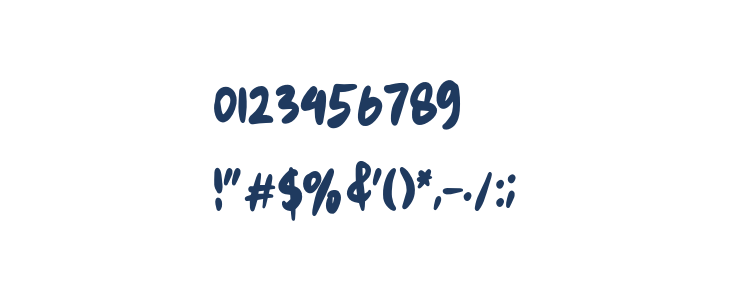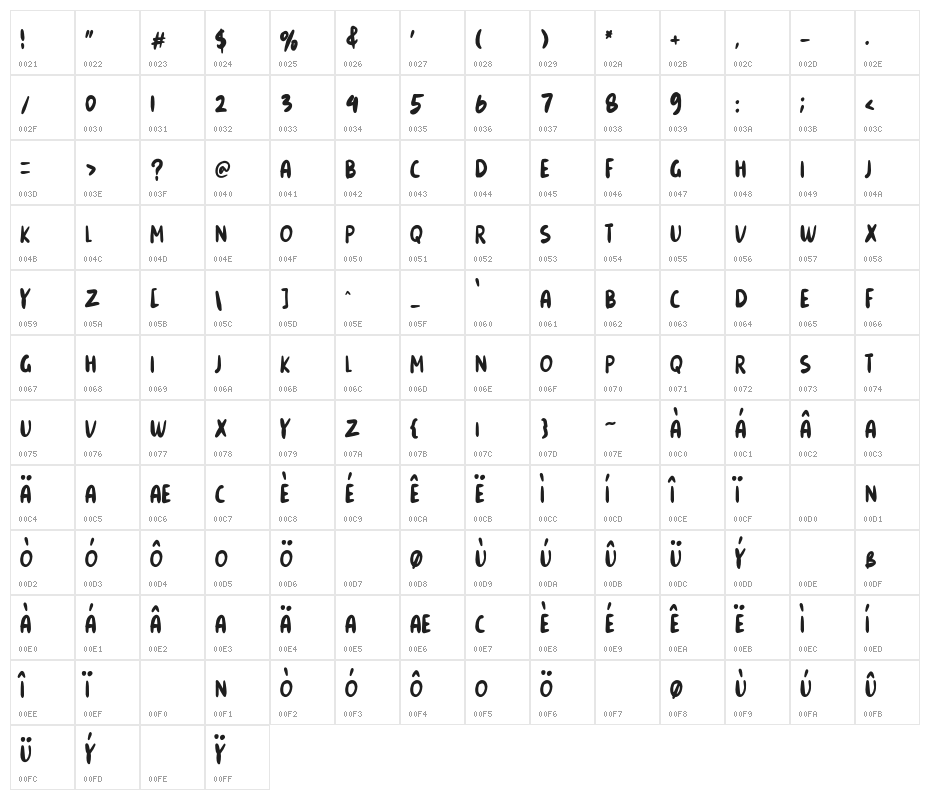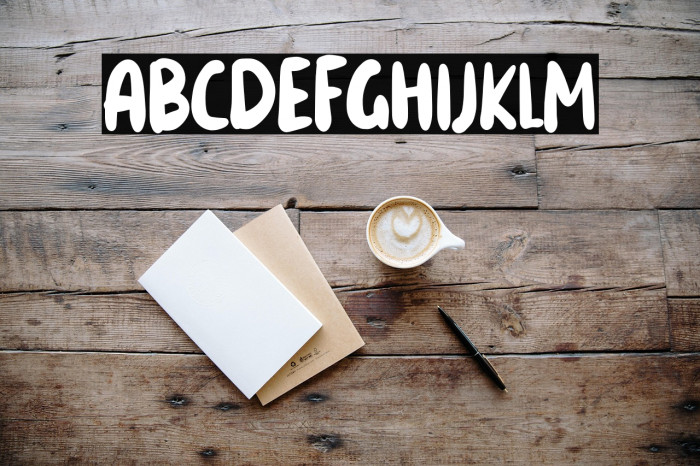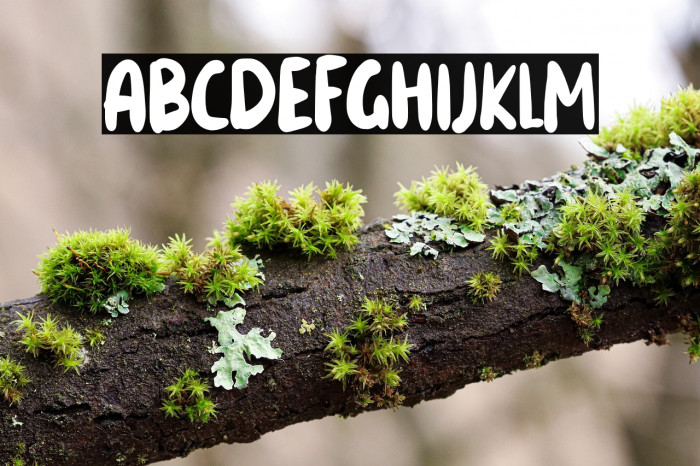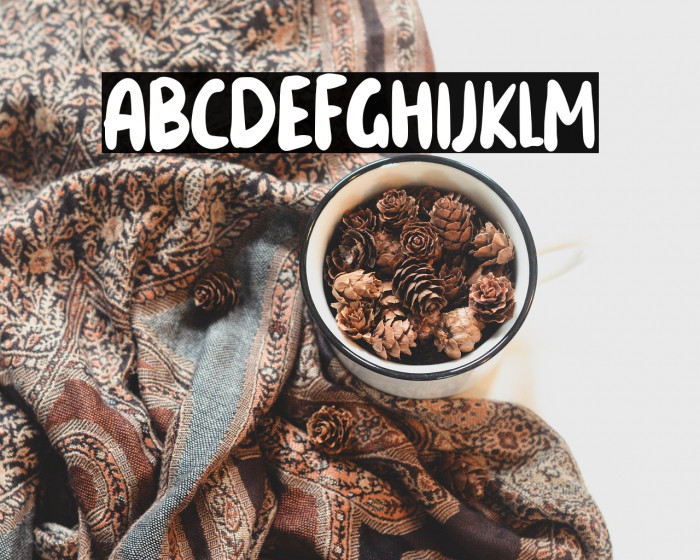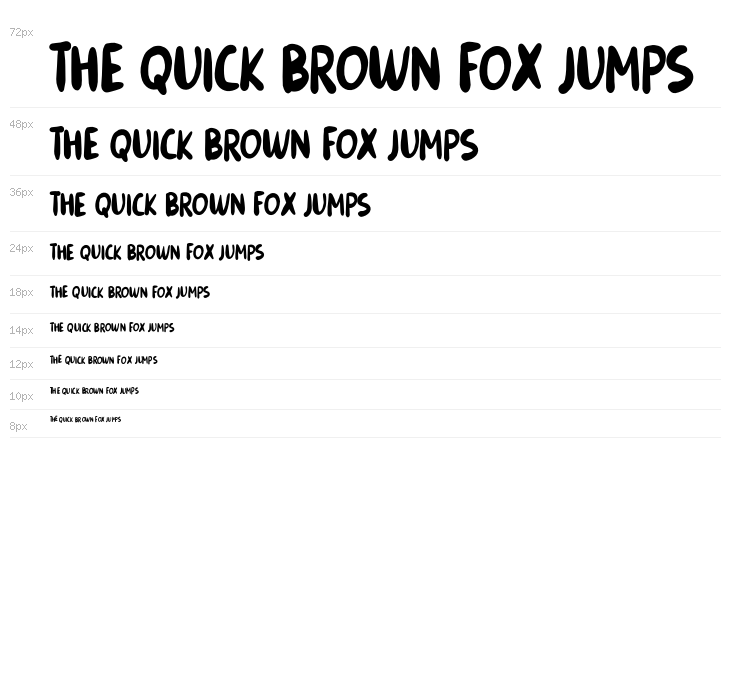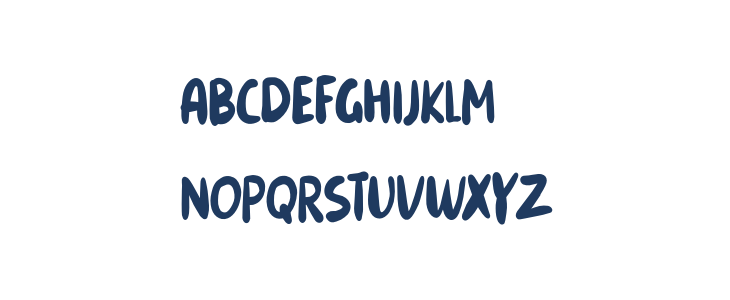
Snowes Font
Snowes Description
This font features a playful and bold handwritten style, characterized by its rounded and slightly irregular letterforms. The strokes are thick and consistent, giving it a strong presence. The uppercase and lowercase letters maintain a uniform width, creating a harmonious look. Numbers and special characters follow the same design principles, ensuring a cohesive appearance across all elements. The font's informal and friendly vibe makes it suitable for creative and casual applications.
| Overall Style | Playful |
| Proposed Projects | Ideal for children's books, greeting cards, posters, and playful branding projects. |